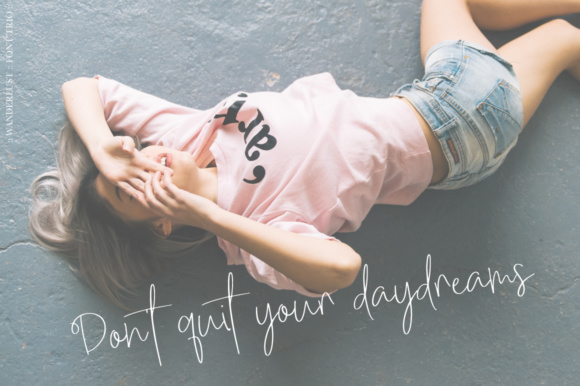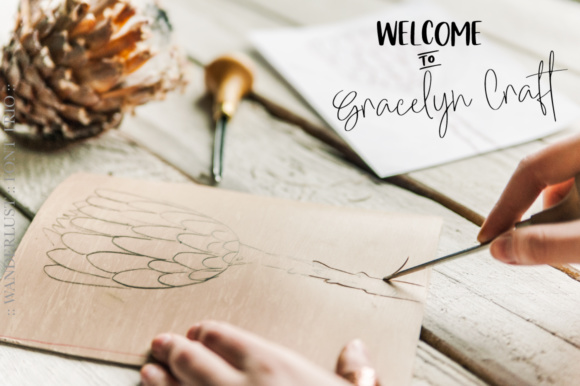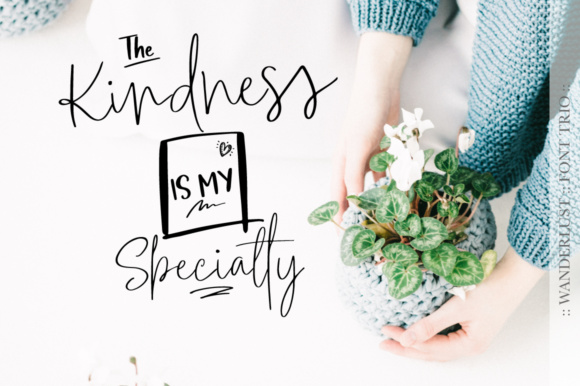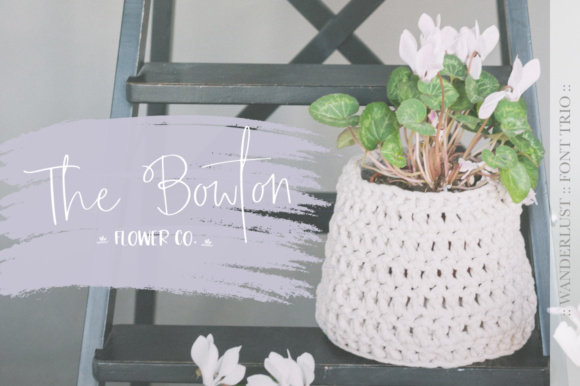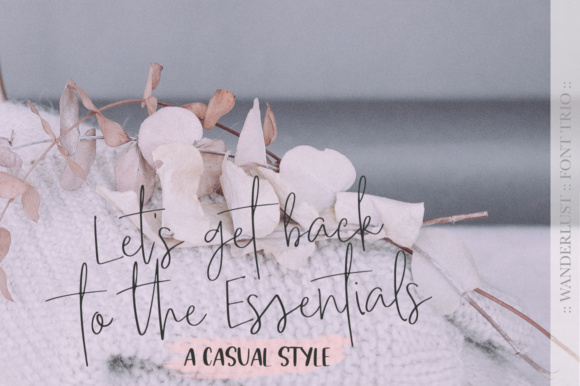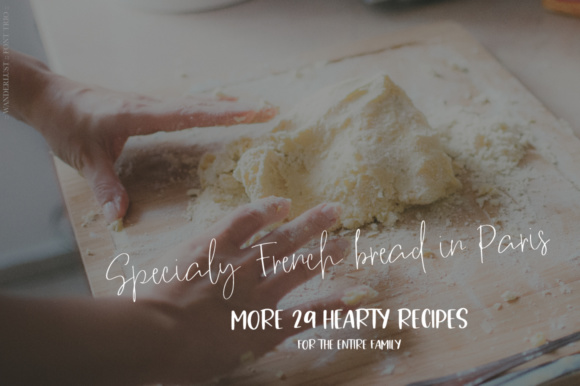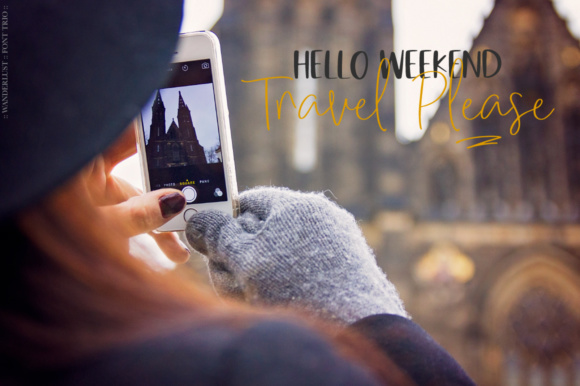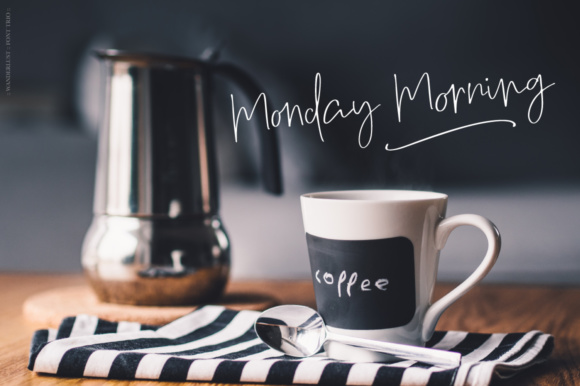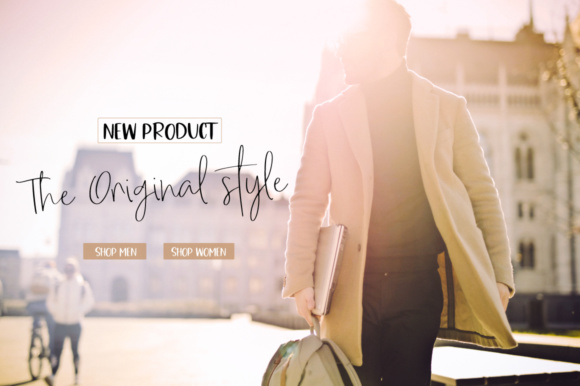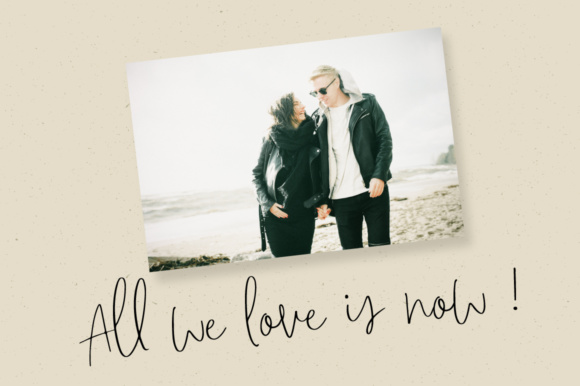
Wanderlust Trio Font
About Wanderlust Trio Font
The Wanderlust Script Font is a fashionable font, perfectly suitable for creating high-impact headlines.
Each letter has been carefully created by hand and digitally perfected. This is the perfect font for creating invitations, branding materials and all-round stunning feminine designs.